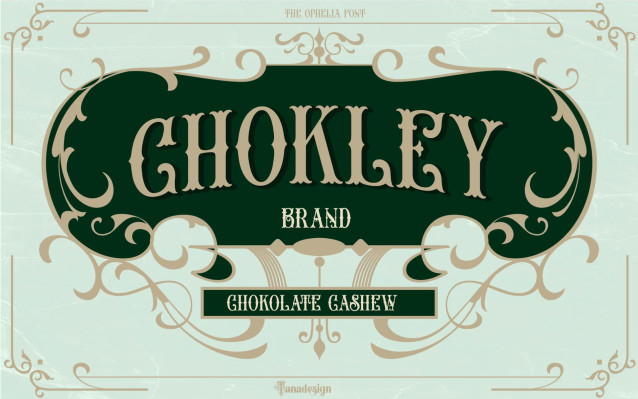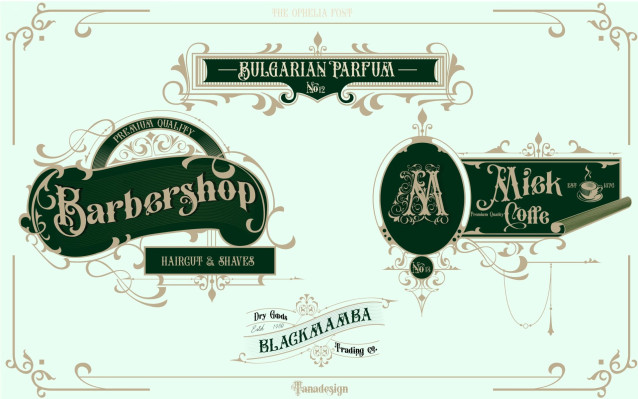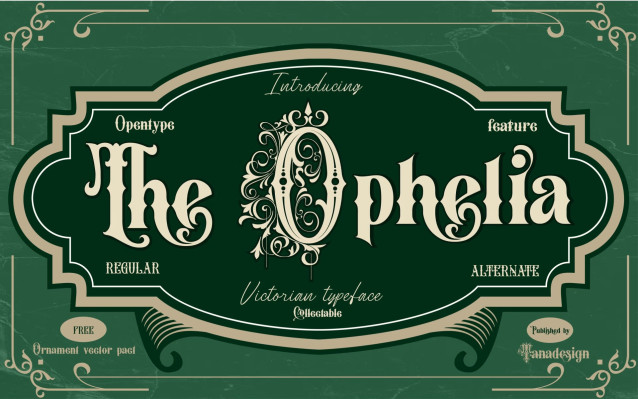
The Ophelia Font
The Ophelia Font was inspired by vintage packaging and advertising from the early 20th century. It is ideal for vintage logo designs, titles and packaging designs.